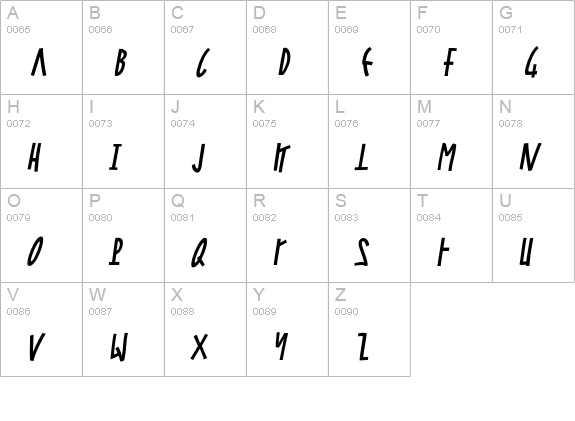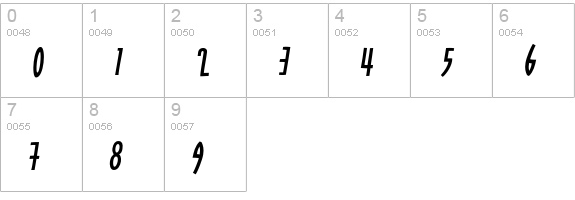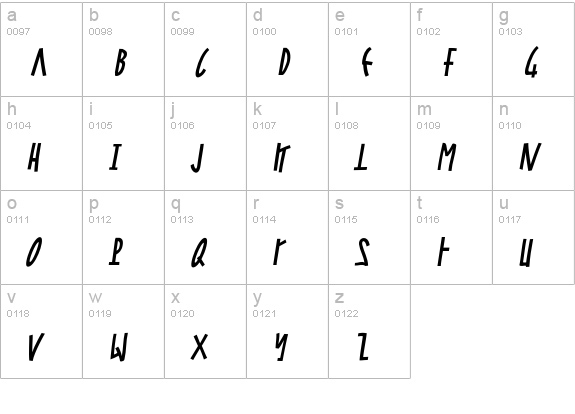
Steel-JonesItalic is a stunning and versatile font that combines elegance with a touch of modernity. Its sleek and sophisticated design makes it the perfect choice for a wide range of projects, from branding and advertising to editorial and web design. The italic style of Steel-JonesItalic adds a sense of dynamism and movement to any text, making it stand out and grab the attention of the reader. The carefully crafted letterforms have smooth curves and clean lines, creating a harmonious balance of strength and grace. What makes Steel-JonesItalic even more appealing is that it is completely free. Yes, you read that right! This amazing font is freely available to download at FontsMarket.com, making it accessible to everyone. Whether you're a professional designer looking to add a touch of sophistication to your latest project or a student working on a personal project, Steel-JonesItalic is the perfect choice. Its versatility and elegance will elevate any design, making it truly remarkable. So why wait? Head over to FontsMarket.com now and download Steel-JonesItalic for free. Unleash your creativity and let this captivating font elevate your designs to new heights.